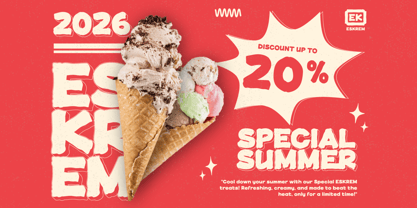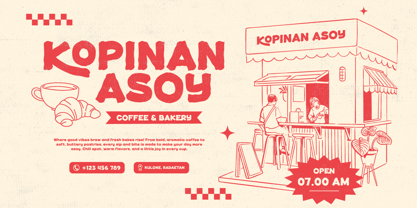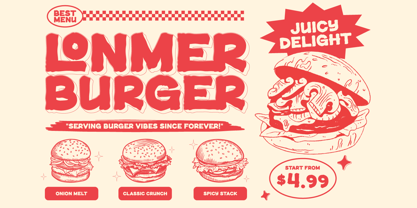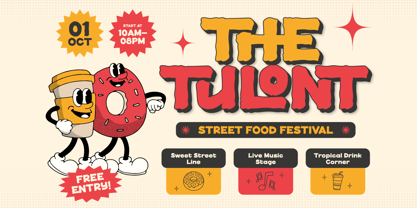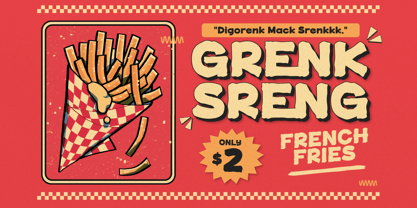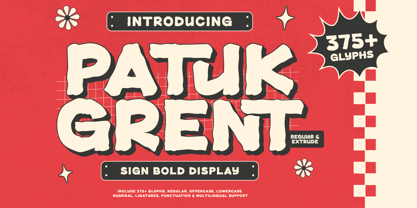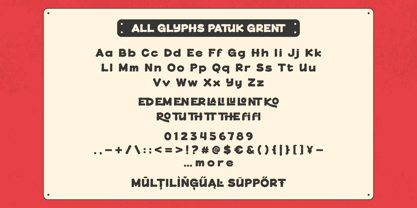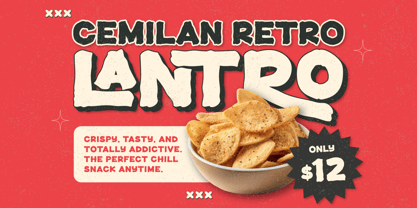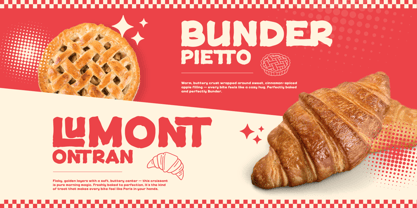
Patuk Grent is a bold sign display font crafted to stand out with strength and retro charm. Featuring Regular and Extrude styles, it delivers impactful visual presence ideal for posters, branding, signage, vintage packaging, or any design that calls for bold, expressive typography.
The Extrude version adds a dynamic 3D effect, giving your headlines and logos extra depth and visual weight. With strong brush strokes and an authentic hand-painted feel, Patuk Grent brings personality and nostalgia to every letterform—perfect for grabbing attention without compromising readability.
Whether used in print or digital design, Patuk Grent is your go-to font for bold statements with vintage flair.